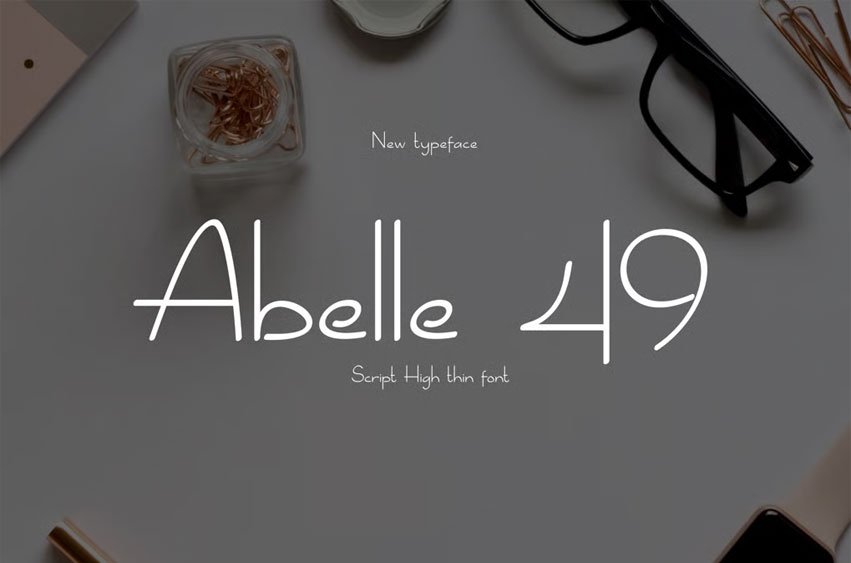
Abelle 49 Font for beauty products that is simple and easy to understand. It is usually found in beauty products such as lotions, moisturizers, and treatments for women.
It could also be for magazines related to it.